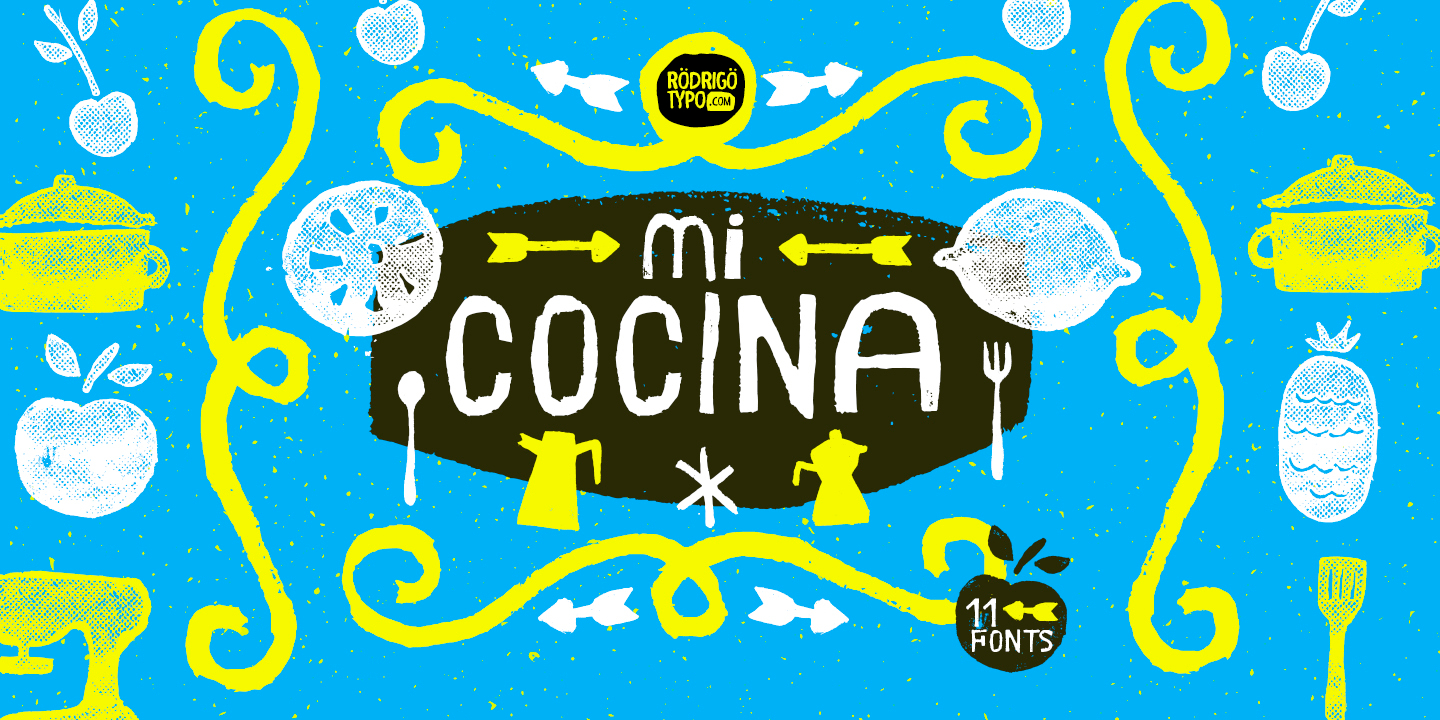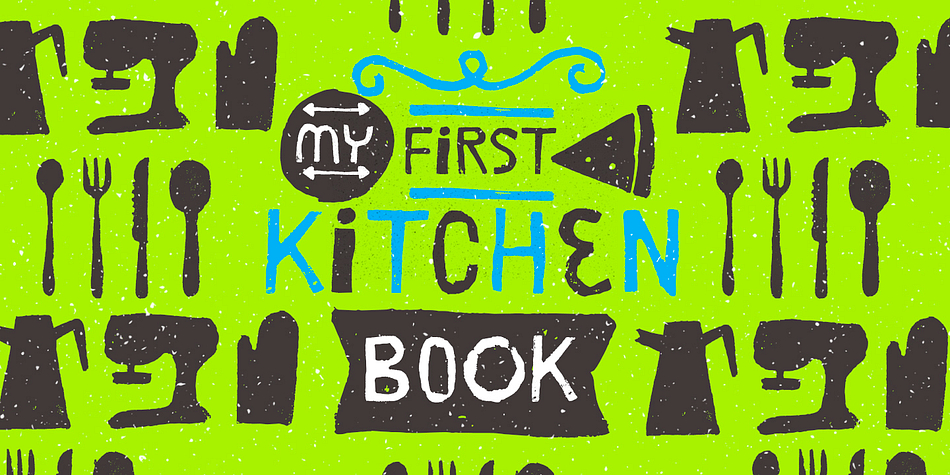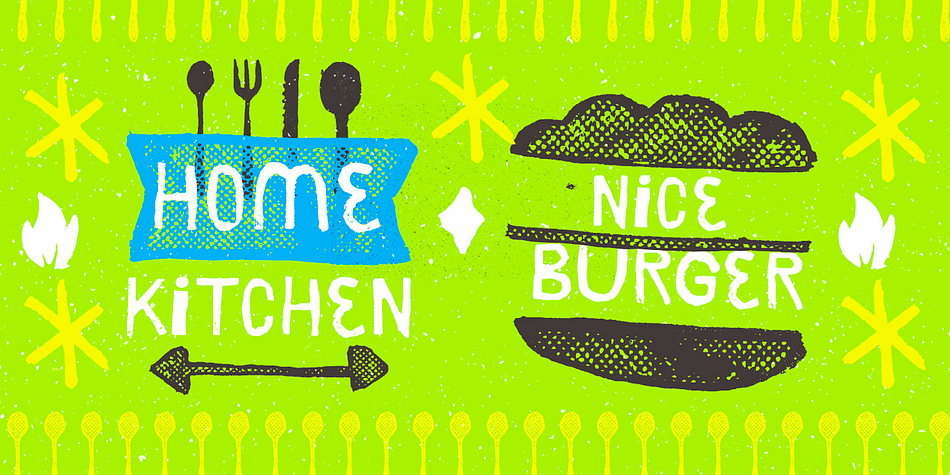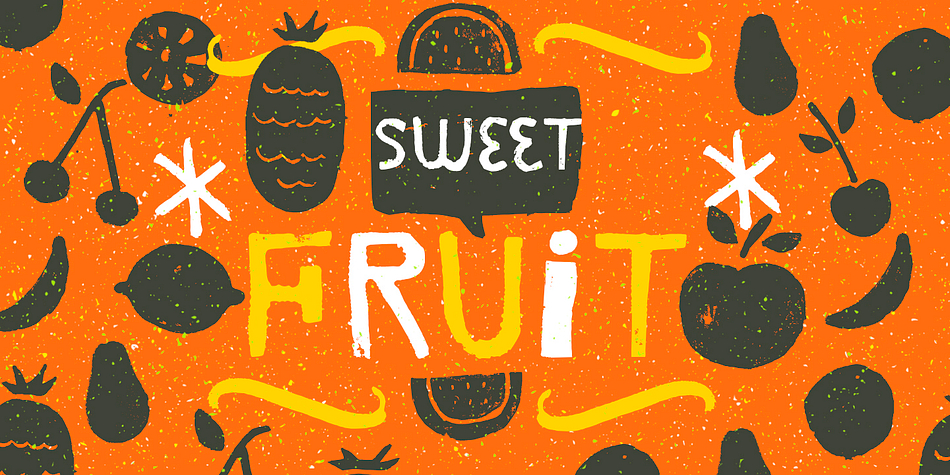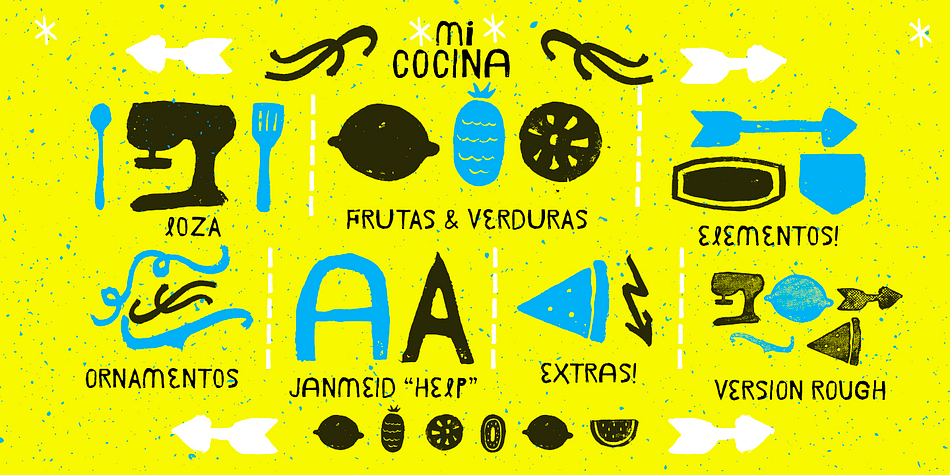
Designed by Rodrigo Araya Salas, Mi Cocina is a dingbat, grunge and hand display font family. This typeface has eleven styles and was published by Rodrigo Typo.
Mi Cocina is typography designed for children’s titles. More than that, it can be utilized for “Restaurant” themed design or for food at home.
The family includes many variants of dingbats, which are separated by fruits, vegetables, kitchen elements, and ornaments.